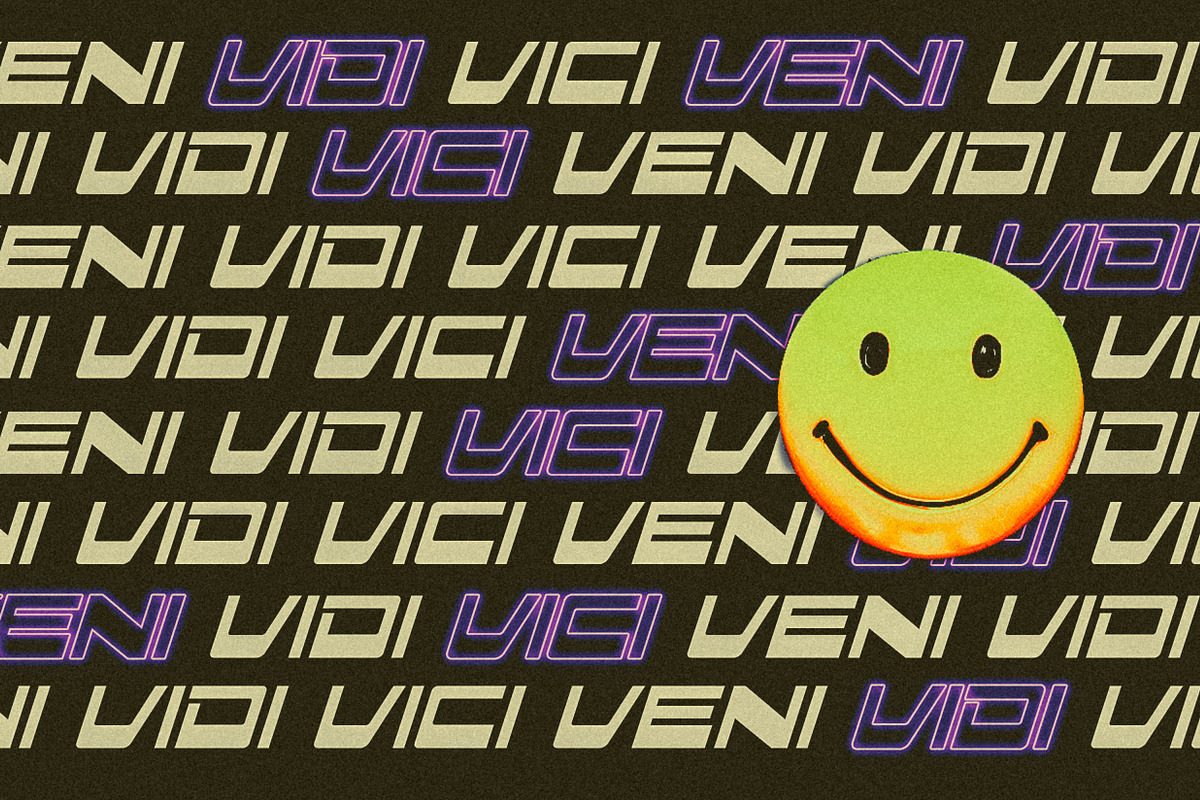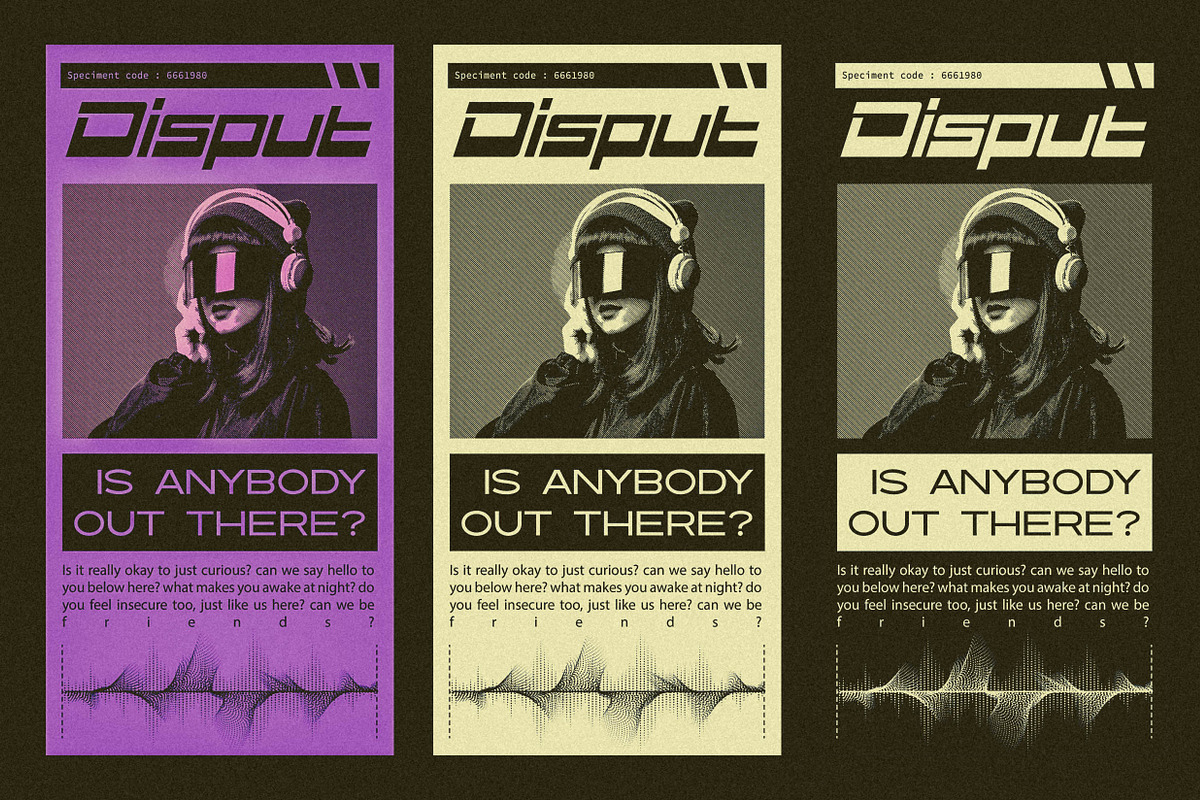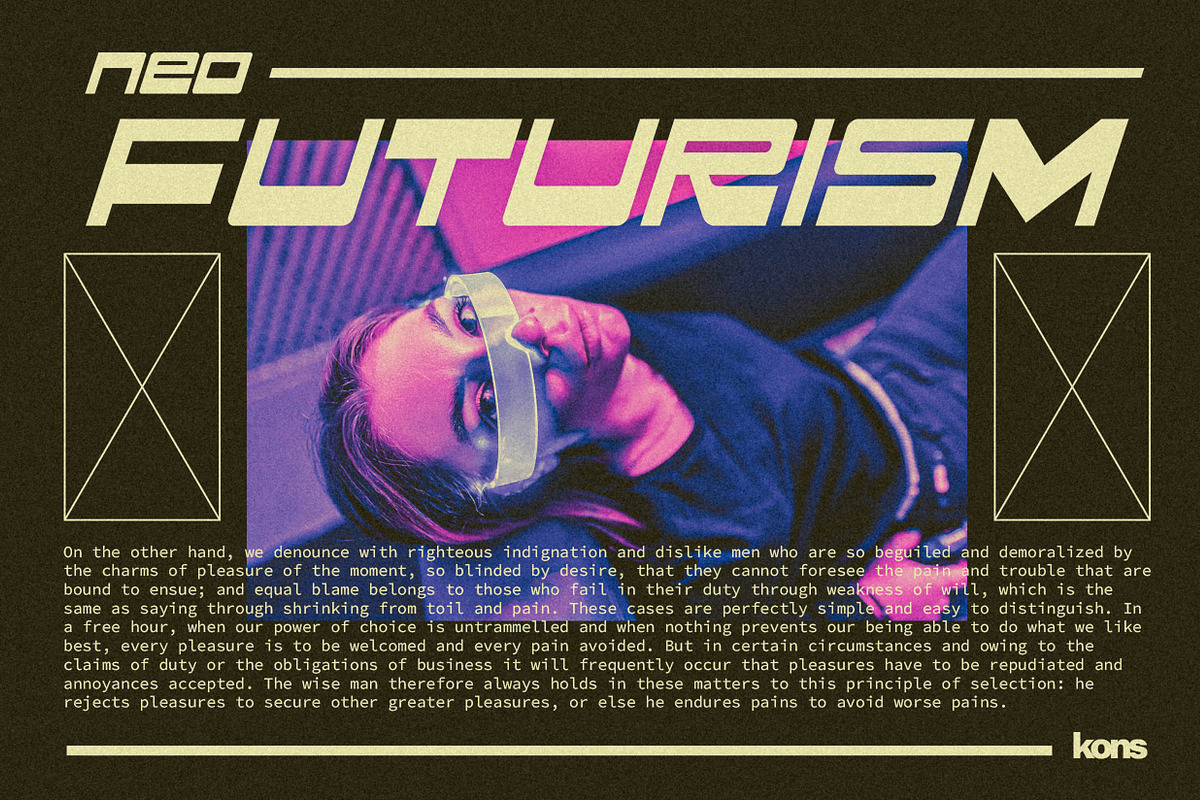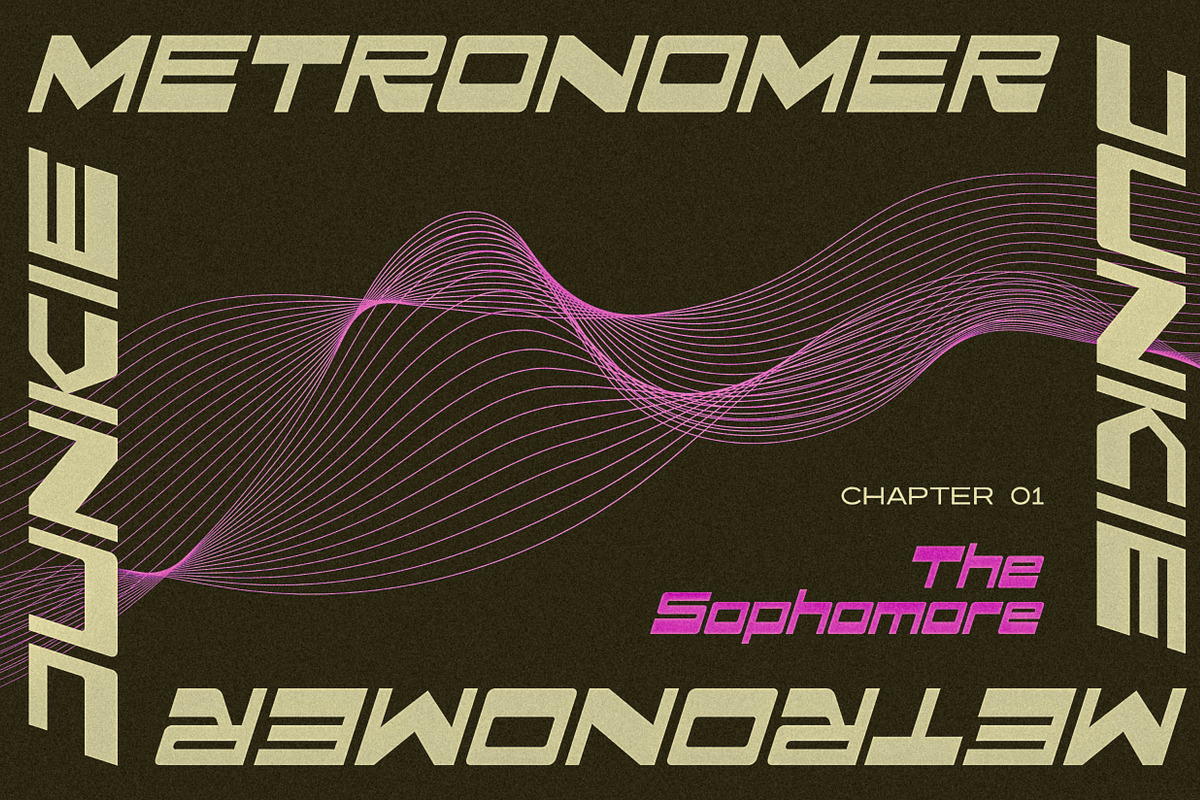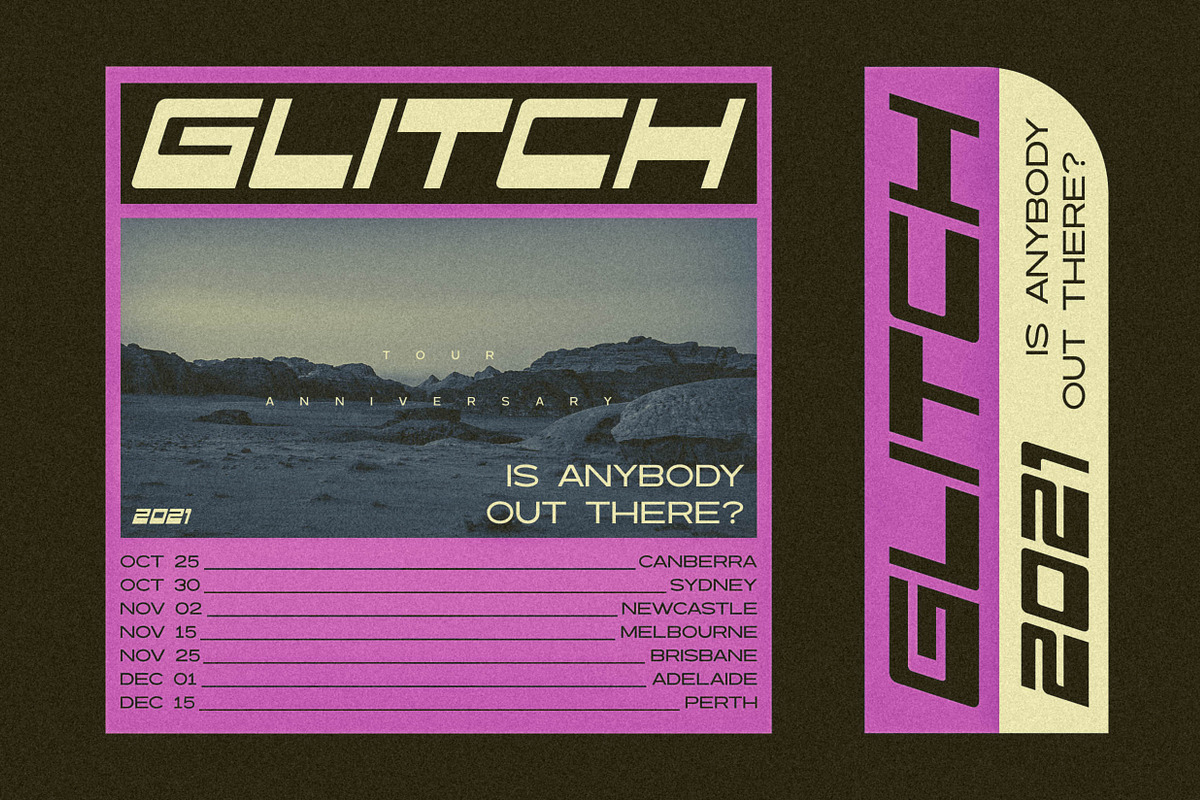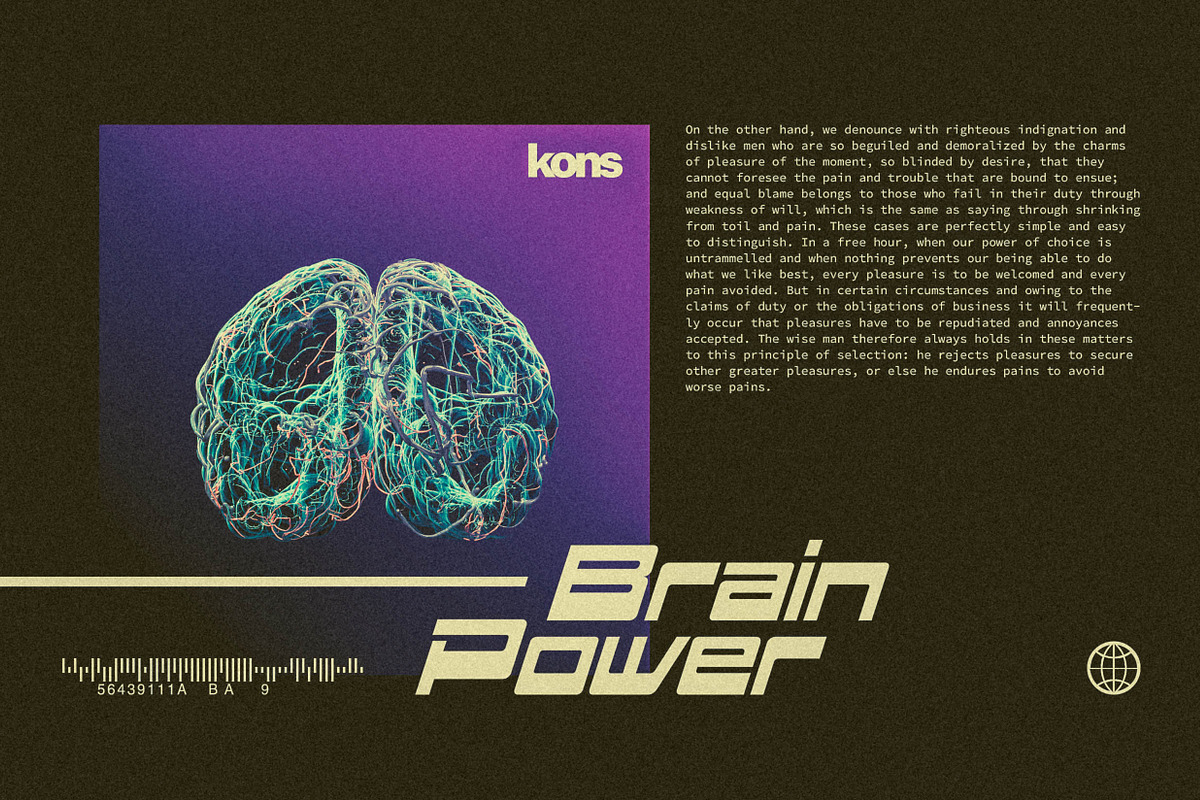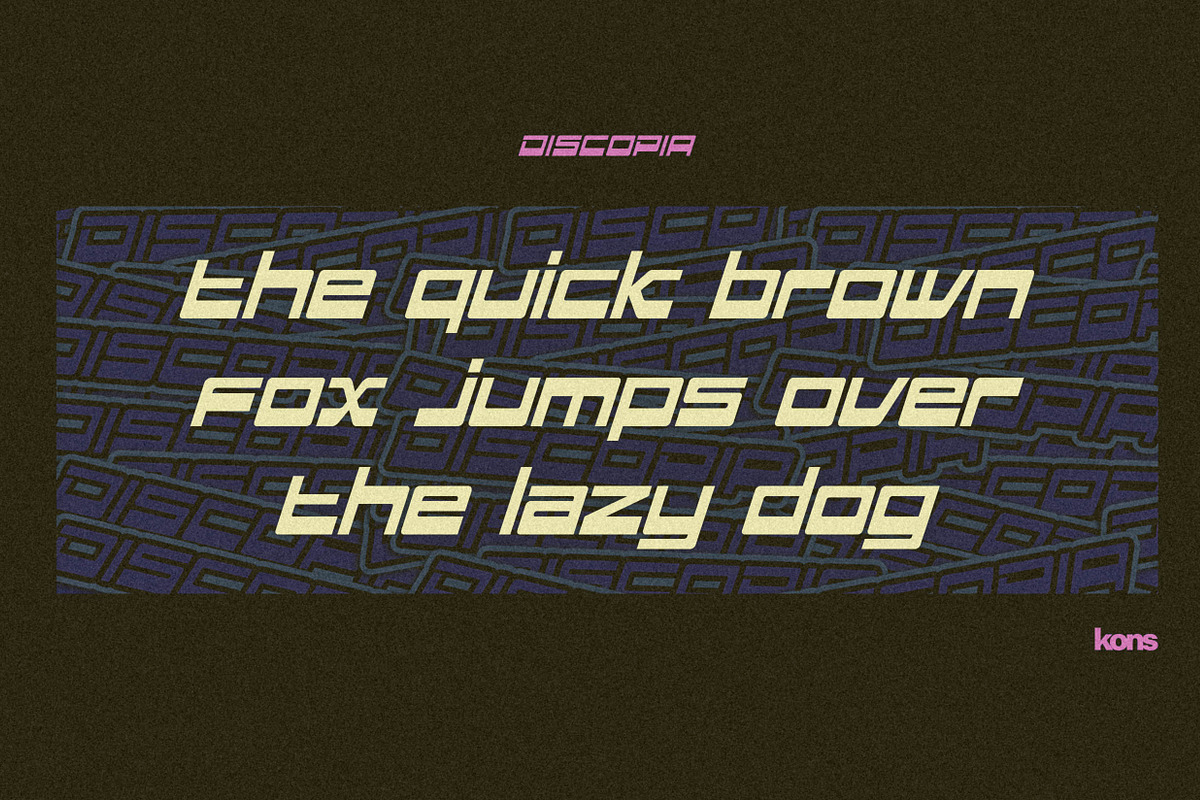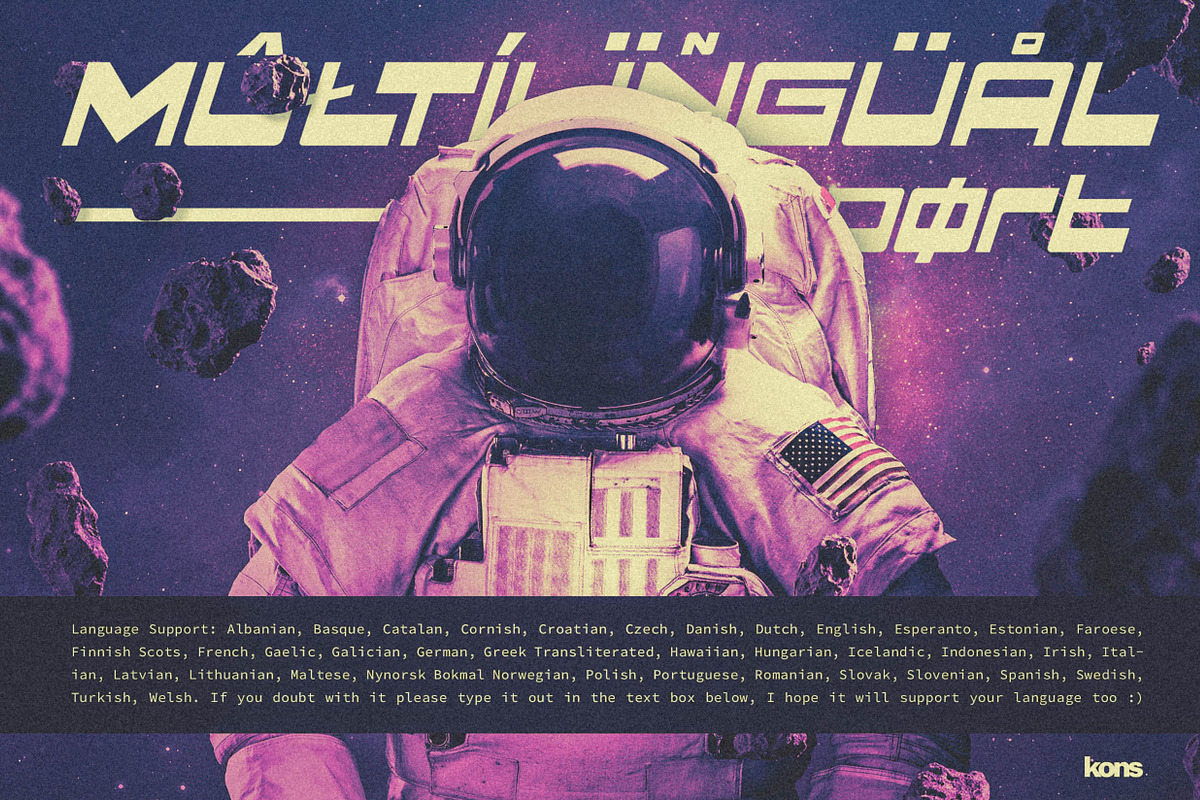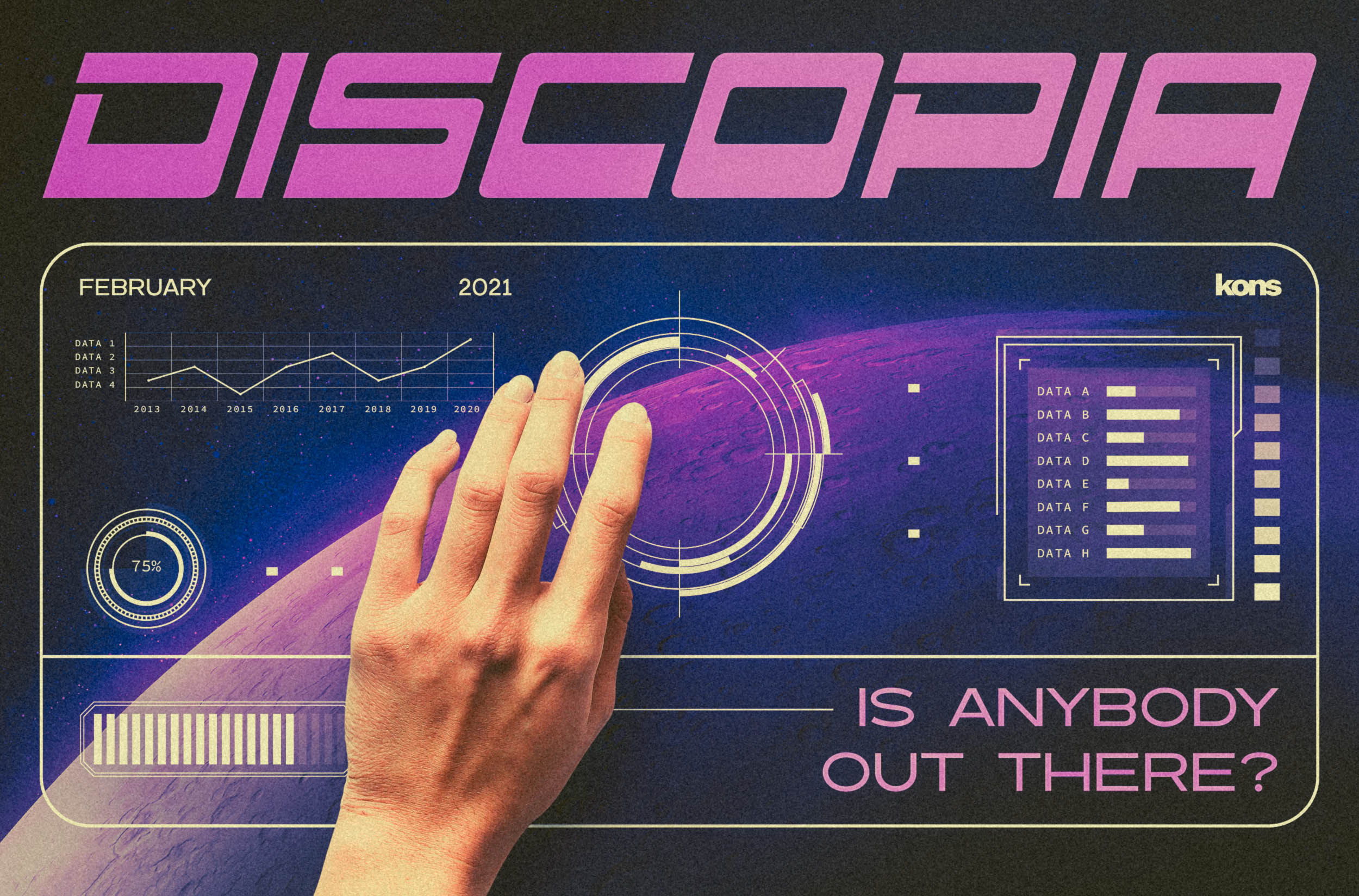
Discopia - Futuristic Tech Fonts
The invasion of futurism is begun. Came out prepared with our latest fonts collection, Discopia. Inspired by the visual of futuristic and techno-based design from the latest and upcoming trends.
Perfectly fit for your gaming logo, branding, techno branding, digital assets, game design, UI, UX, synthwave, vaporwave, futuristic poster, contemporary typographic design, techwear apparel, vehicles design, prototype concept, anything you need a boost to the future, Discopia is here.
Language Support: Albanian, Basque, Catalan, Cornish, Croatian, Czech, Danish, Dutch, English, Esperanto, Estonian, Faroese, Finnish Scots, French, Gaelic, Galician, German, Greek Transliterated, Hawaiian, Hungarian, Icelandic, Indonesian, Irish, Italian, Latvian, Lithuanian, Maltese, Nynorsk Bokmal Norwegian, Polish, Portuguese, Romanian, Slovak, Slovenian, Spanish, Swedish, Turkish, Welsh. If you doubt with it please type it out in the text box below, I hope it will support your language too :)